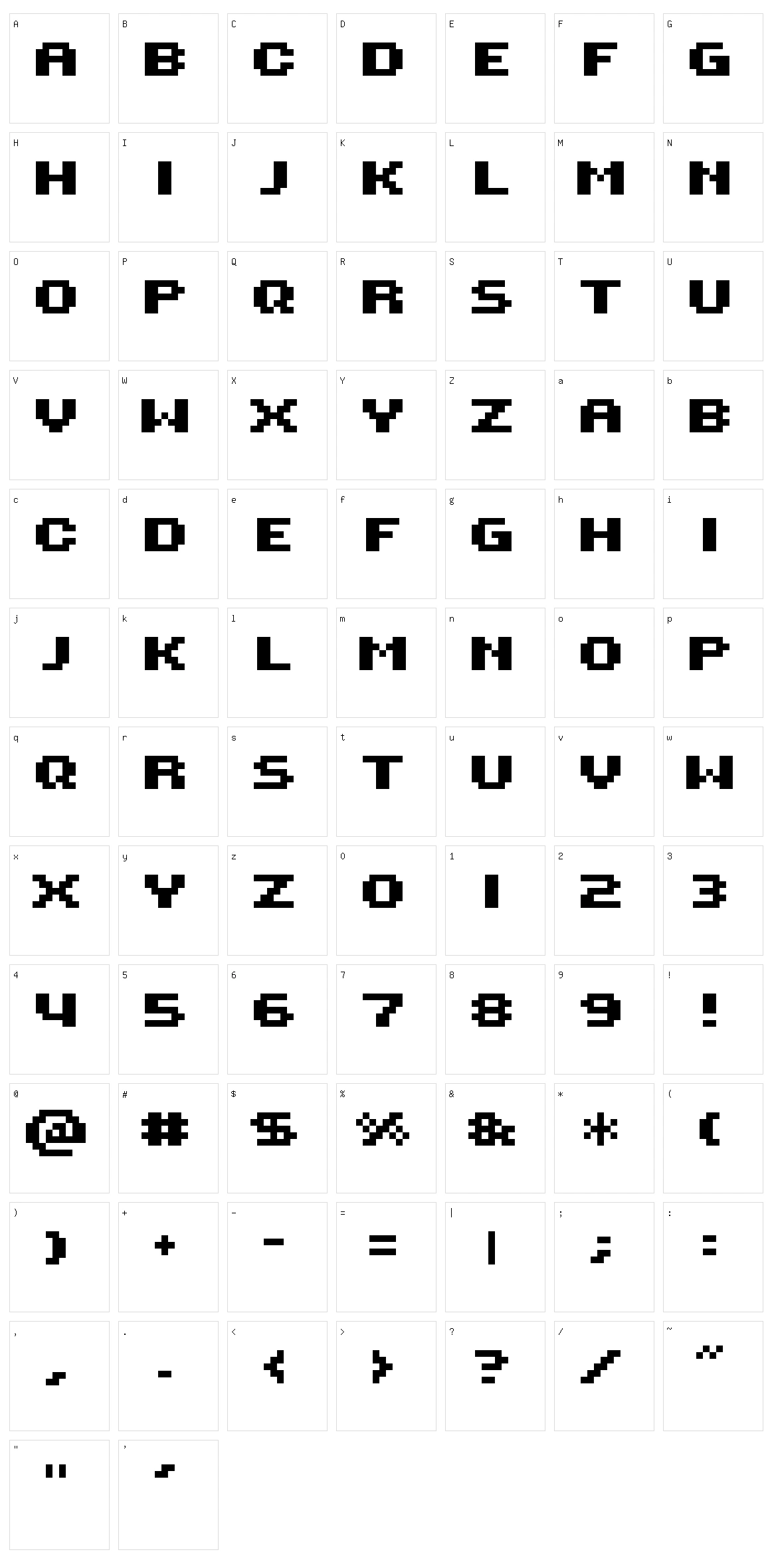
Rotorcap
Designed by: ROTORtype
For best results, use Photoshop 5.0 at 7 points. Set the
tracking to 40 (regular) or 60 (bold, extended). Of course
with anti-aliasing turned off.
Please note that I have not put as much work on the kerning
on these fonts as you would expect from a commercial release.
Therefore, make sure that all words you type look good, and
manually kern those that don't for ultimate satisfaction.
I made the first version of ROTORcap sometime during
springtime 1998 in the process of redesigning the
CAP&Design website. At that point, the small type in
the navigation was considered too small by the client,
but I refused to change it. And now, almost a year after
the site was launched, I've been asked about this font
uncountable times.
Most people have naturally asked whether the font is
available to the public in any way, but up to this point
it has been exclusive property of the ROTORfabrik workers.
I expect you to be conclusive enough to realise this is
not the case anymore, and what's even better - we will
continue to release freetypefaces on a regular basis from
now on.